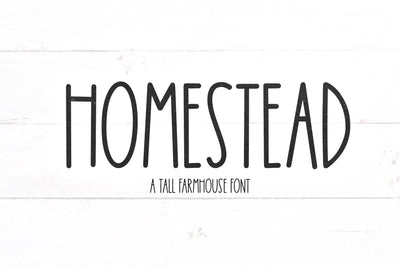
Homestead - Tall Farmhouse Font
Homestead is a tall and skinny handwritten font.
This font is perfect for SVG designs, cricut projects, farmhouse signs, decor, branding, logos, stickers, shirts, procreate and more!